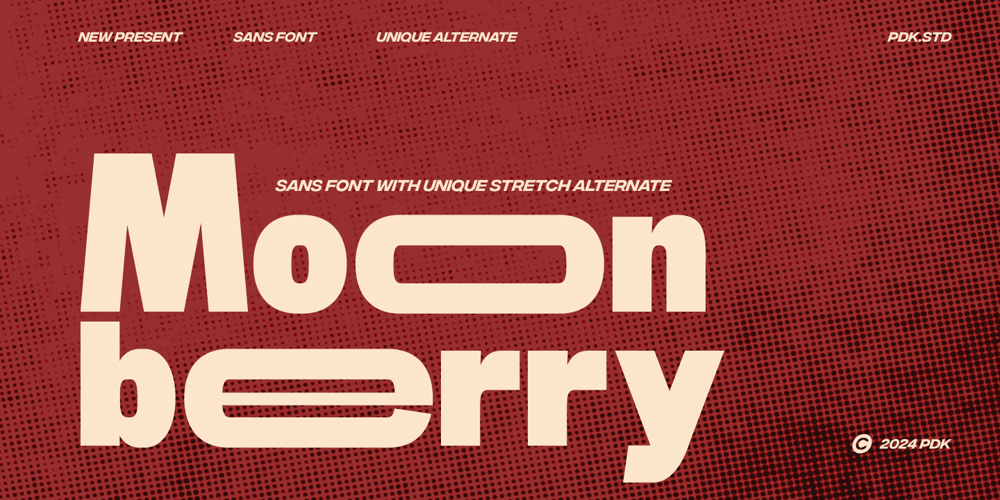
Moon Berry
Moon Berry font
Moon Berry Font Family was designed by Sagara Nararya and published by Pandeka Studio. Moon Berry contains 1 styles and family package options. Introducing Moon Berry – a headline font that captures the essence of a bygone era with a delightful retro feel. Its bold strokes and quirky shapes, combined with a touch of stretch, reminiscent of futuristic posters and modern advertisements.Moon Berry isn’t just a font, it’s a storyteller, bridging the gap between past and present with a modern twist :DWhat’s you get? Moon Berry Main Files Instructions (Access special characters in all apps, even in Cricut Design) Unique letterforms Works on PC & Mac Accessible in the Adobe Illustrator, Adobe Photoshop, Microsoft Word even work on Canva PUA Encoded Characters Fully accessible without additional design software. Feel free to follow, like and share. Thanks so much for checking out my shop!Have a great day!Pandeka Studio